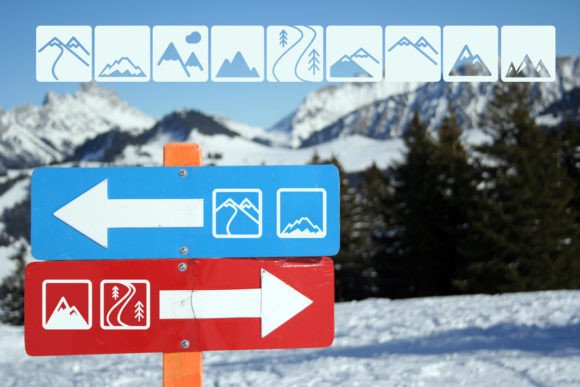
**Unleash the Magic of Nature in Your Typographic Creations with LL Mountain**
Immerse yourself in the captivating realm of LL Mountain, a whimsical dingbat font family that whispers the secrets of nature's grandest landscapes. Inspired by the awe-inspiring peaks and sprawling vistas that define our planet's topography, LL Mountain invites you on a typographic adventure where imagination knows no bounds.
With its crisp, clean lines and playful spirit, LL Mountain effortlessly amplifies your designs, infusing them with a touch of the great outdoors. Whether you're crafting enchanting invitations, captivating social media posts, or eye-catching website graphics, LL Mountain is your trusty companion, ready to elevate your creations to new heights.
**A Symphony of Nature's Wonder, Embodied in Every Dingbat**
Each dingbat in the LL Mountain family is a masterpiece in its own right, meticulously crafted to capture the essence of nature's most captivating elements. From towering mountains that pierce the heavens to gentle streams that meander through lush meadows, LL Mountain brings the beauty of the natural world to your fingertips.
Use these charming dingbats to adorn your designs with a touch of whimsy and wonder. Let the playful shapes of trees, clouds, and wildlife dance across your pages, creating a visual symphony that captivates your audience and transports them to a world of endless possibilities.
**Unlock a World of Creative Expression with LL Mountain**
Whether you're a seasoned designer or just starting your typographic journey, LL Mountain is the perfect companion to unleash your creativity and embark on a journey of endless exploration. Its intuitive design makes it effortlessly easy to use, allowing you to seamlessly integrate these enchanting dingbats into your existing designs or create entirely new masterpieces from scratch.
**Join the LL Mountain Revolution Today and Watch Your Designs Soar**